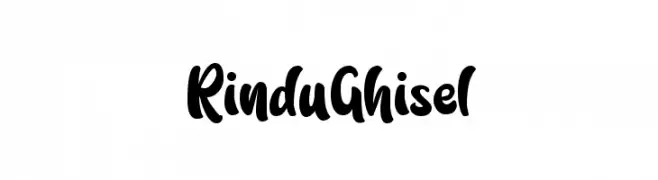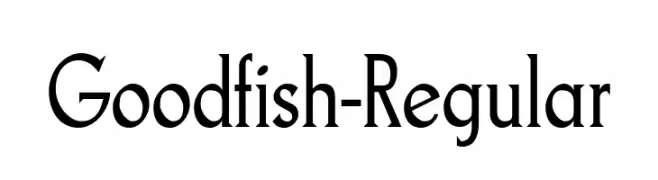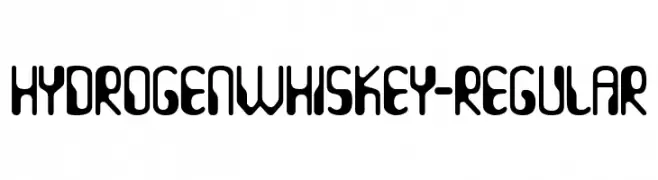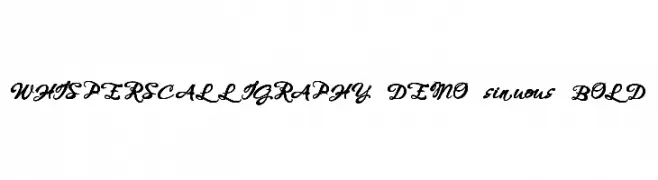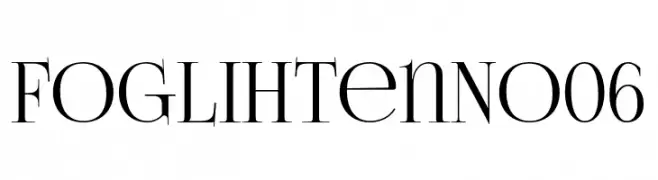
A playful and whimsical script font with bold, flowing letters.
A lively, expressive handwritten font with fluid, dynamic strokes.
A bold, playful script font with a handwritten style and rounded edges.
A classic serif font with elegant, sharp serifs and a sophisticated appearance.
A bold, geometric font with a modern and futuristic style.
A bold, flowing script font with intricate line work and decorative flourishes.
A bold, expressive script font with elegant, flowing letterforms.
An elegant, bold calligraphic font with flowing, ornate curves.
An elegant script font with flowing, cursive letterforms and classic sophistication.
A sophisticated serif font with high contrast and elegant serifs.